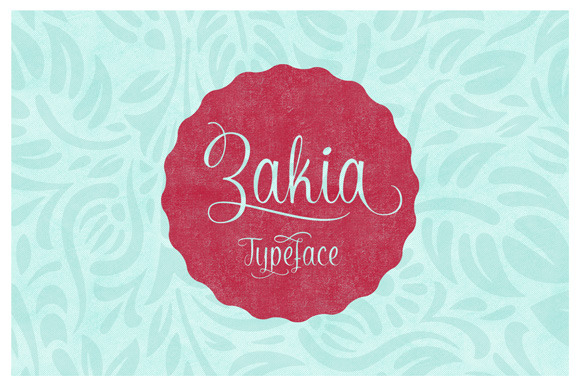
Zakia Typeface
Zakia is informal script lettering font with a bunch of alternative characters to choose. Zakia uses OpenType feature such as swash and contextual alternates that can be found by using OpenType savvy program such as Adobe Illustrator and Adobe InDesign.
Zakia font suitable for any kind of publications like logo design, branding, poster, packaging, website or blog, etc. It is stylish and flowing, feels like human handwriting by using a copperplate pen.